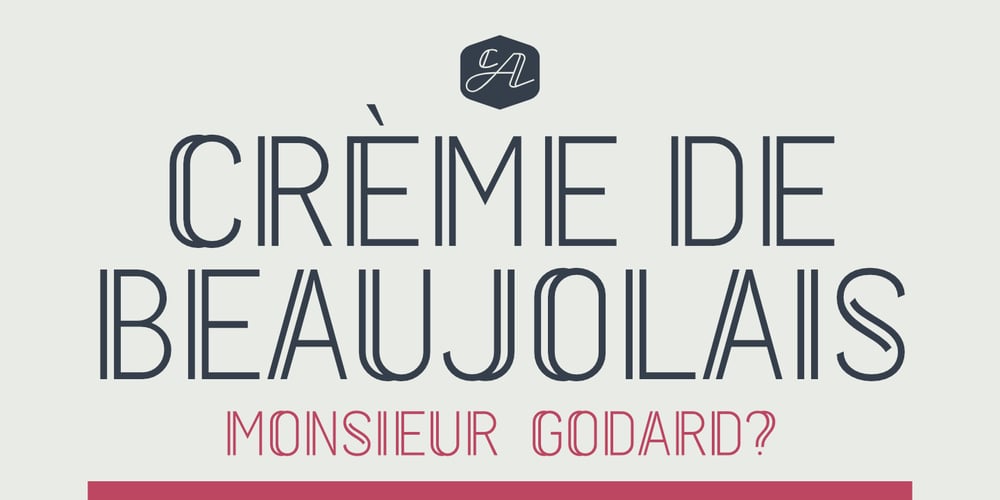
CA Fourty Open Font Family was designed by Thomas Schostok and published by Cape Arcona Type Foundry. CA Fourty Open contains 1 styles and family package options. CA Fourty Open is another take on the idea of a double-line font. It reminds us of neon-sings, but lifts the 50s aesthetics to a contemporary level. Although it’s an all-caps font, upper and lower cases differ a little bit. The upper cases are more open. CA Forty Open has a full Central European letterset.